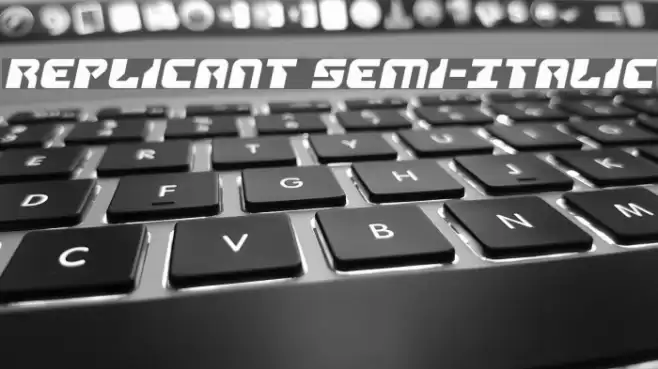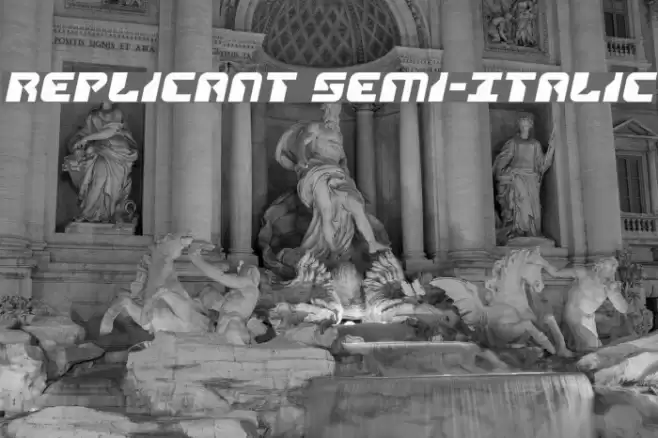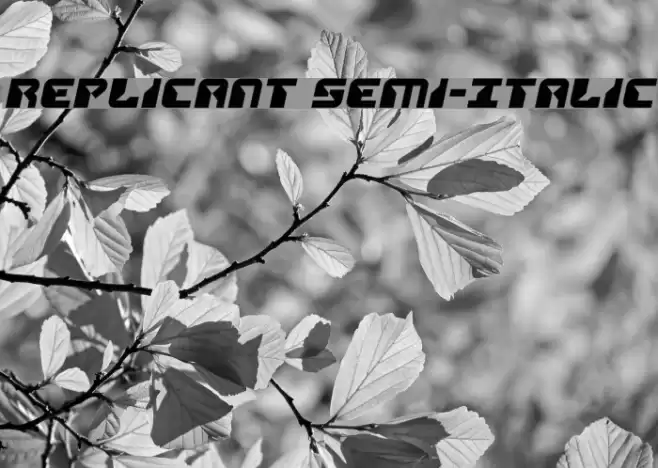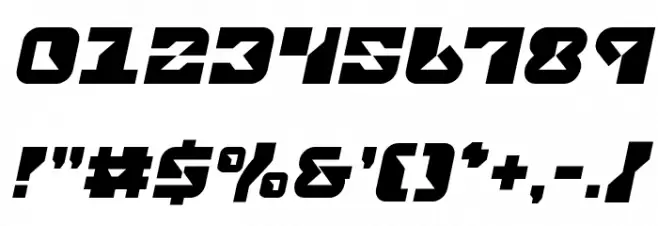
Replicant Semi-Italic Font
Replicant Semi-Italic Description
This font features a futuristic and angular design, characterized by sharp edges and a dynamic slant. The letters are bold and convey a sense of movement and modernity, making it ideal for projects that require a strong visual impact. The uppercase and lowercase letters maintain a consistent style, with geometric shapes that create a cohesive look. The numerals and special characters are designed to match the overall aesthetic, ensuring uniformity across different uses. The font's unique style makes it stand out, suitable for creative and innovative projects.
A bold, angular, and futuristic font with a dynamic slant from Uncategorized fonts.
- Proposed Projects: Ideal for sci-fi themed designs, video game titles, tech branding, and futuristic posters.
- Overall Style: Futuristic